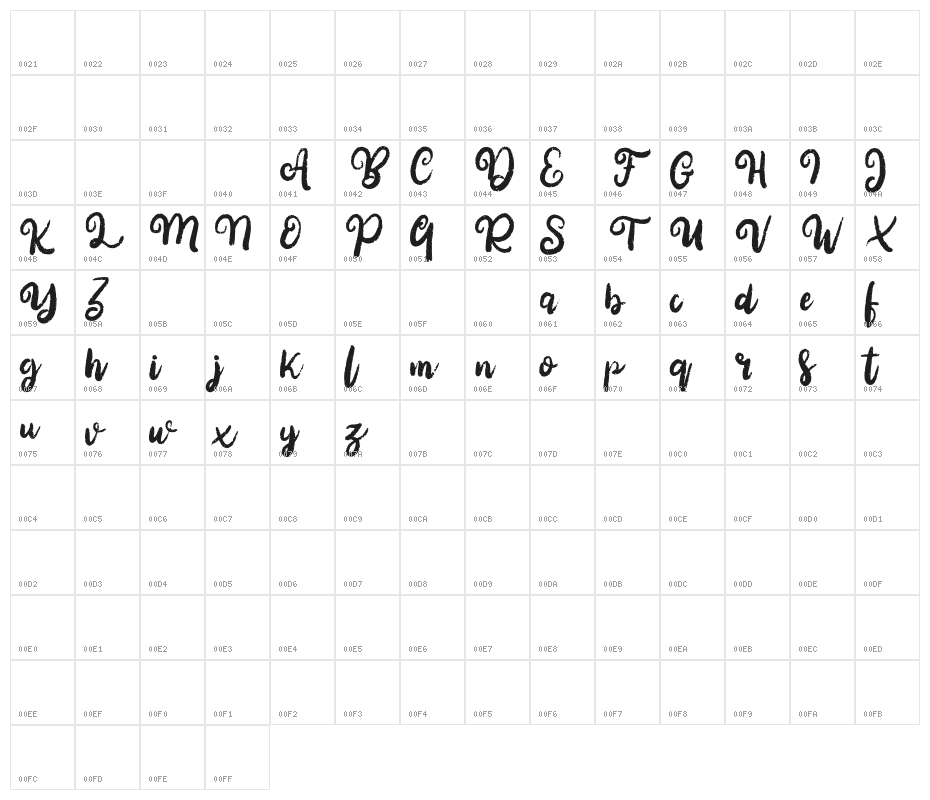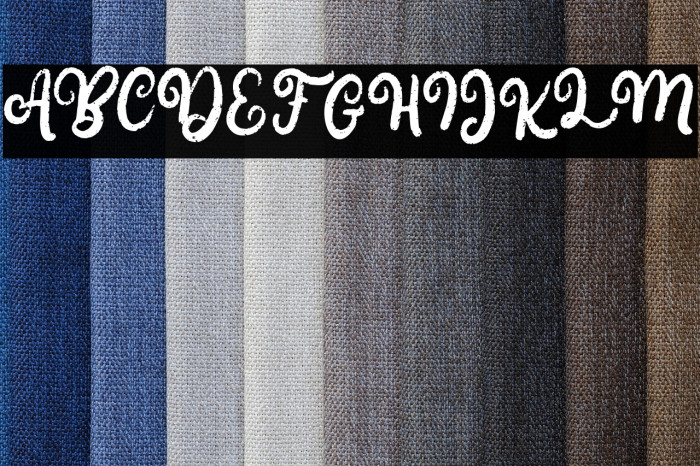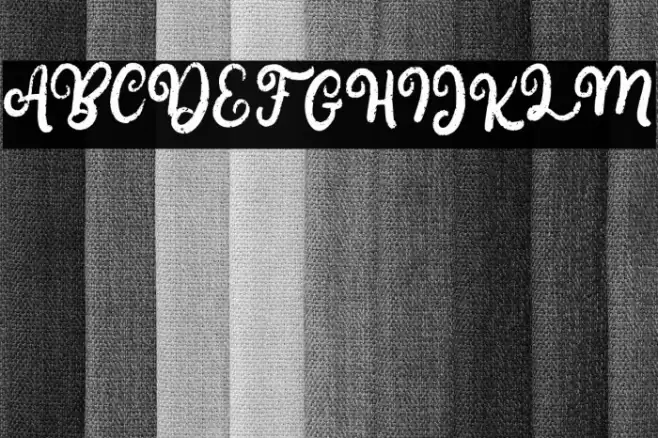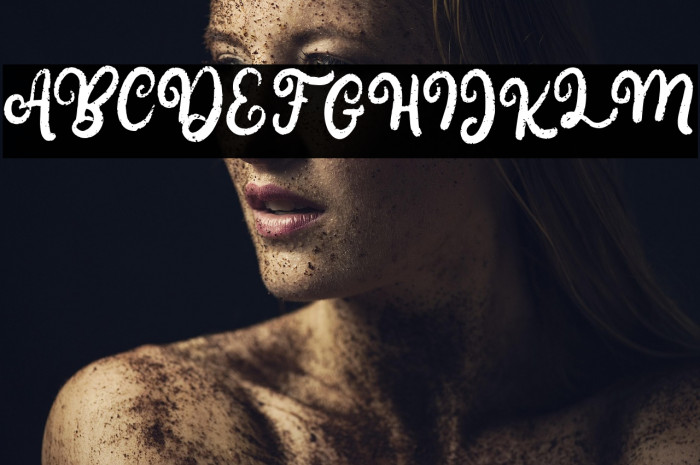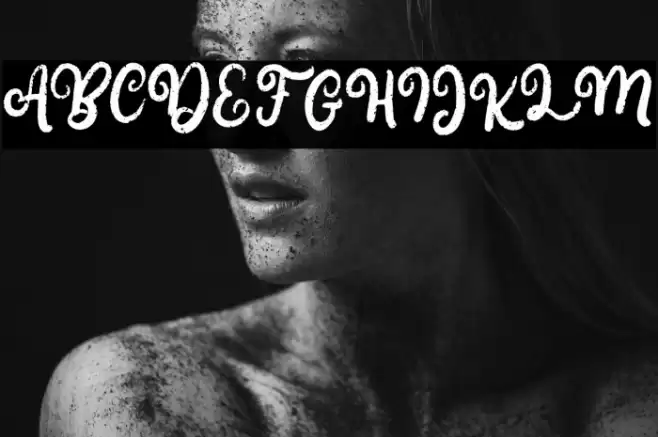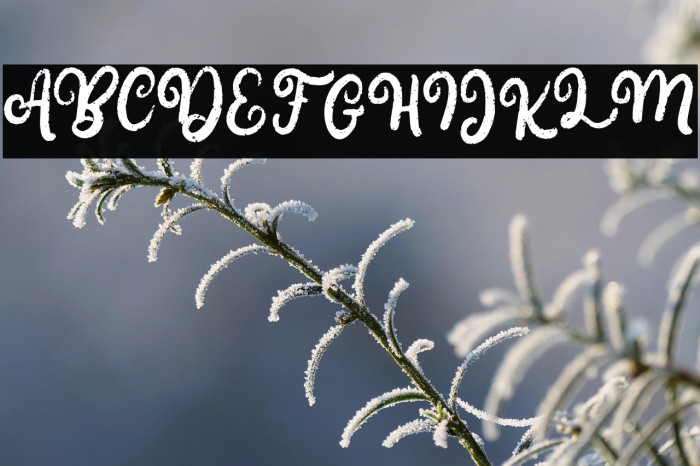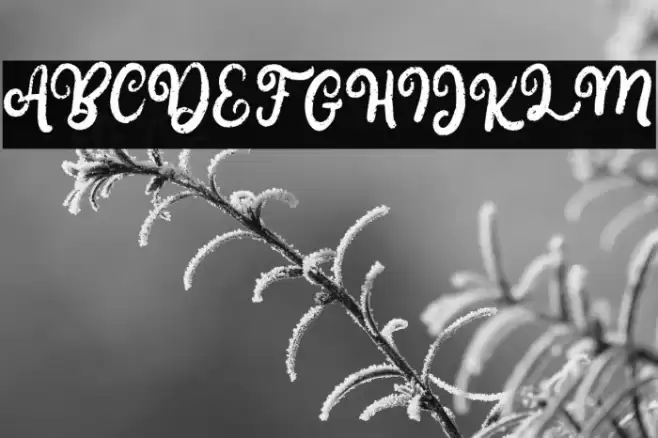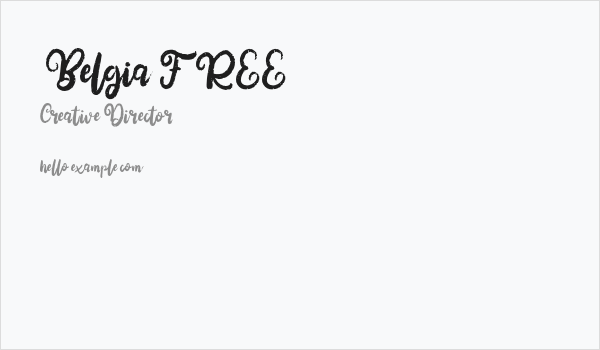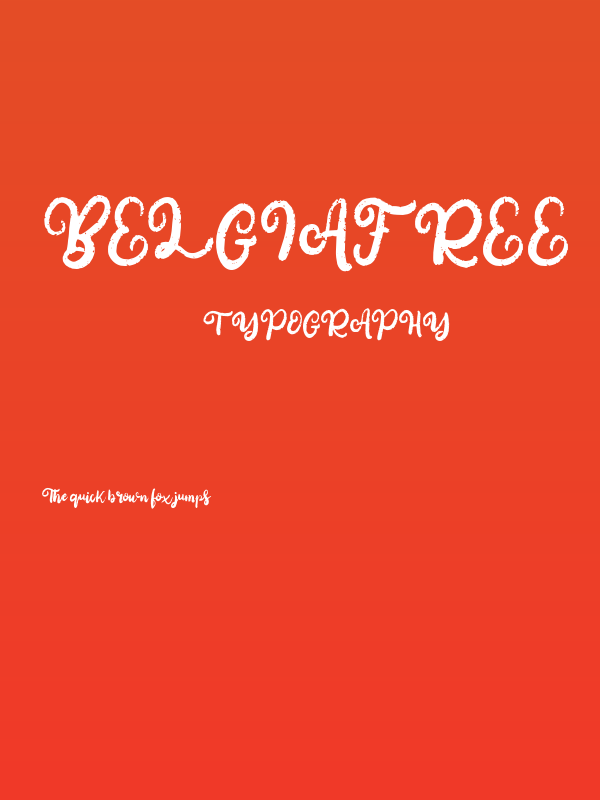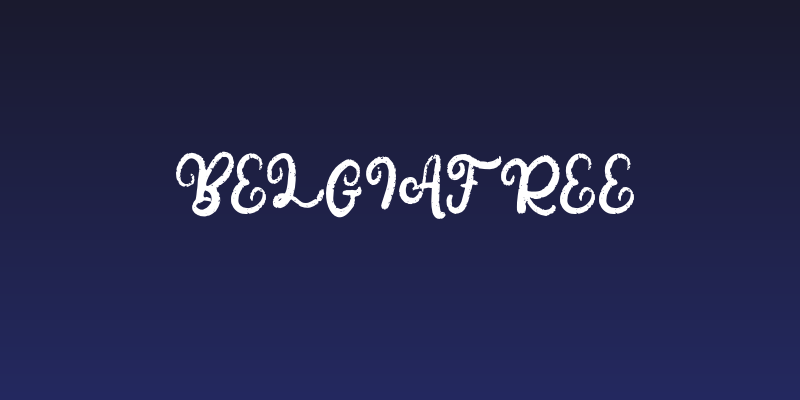
BelgiaFREE Font
BelgiaFREE Description
This font features a bold, brush script style with a hand-painted appearance. The letters are connected, giving it a flowing and dynamic look. The strokes are thick and exhibit a textured, slightly distressed effect, adding a rustic charm. The uppercase letters maintain a consistent height, while the lowercase letters have a playful bounce, enhancing its casual and artistic feel. The font's organic curves and loops make it suitable for creative and expressive designs.
| Proposed Projects | Ideal for branding, packaging, invitations, and social media graphics where a personal, artistic touch is desired. |